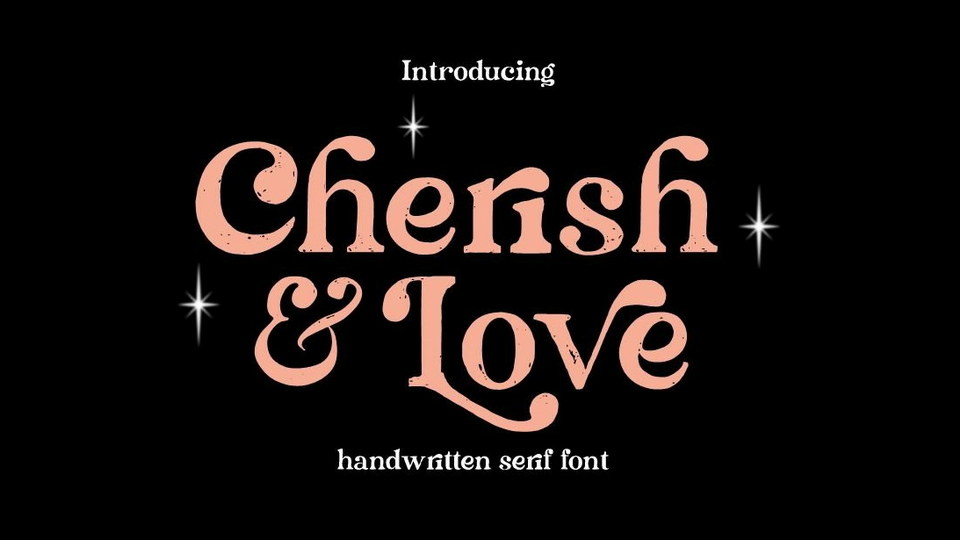
Download Cherish & Love font, an elegant handwritten trendy serif typeface with both modern and retro look. Cherish & Love is perfect for any projects such as : logos, branding projects, book covers, invitations, greeting cards, label, special events and more.
Designer: Reyrey Blue